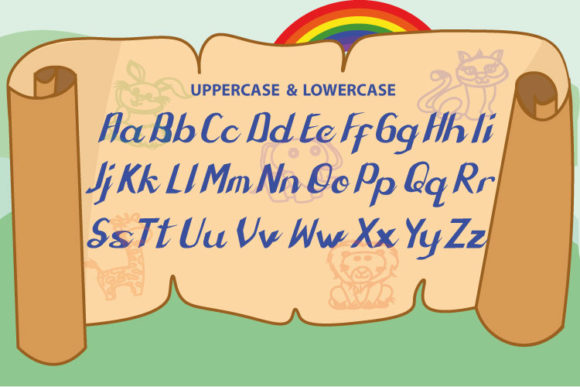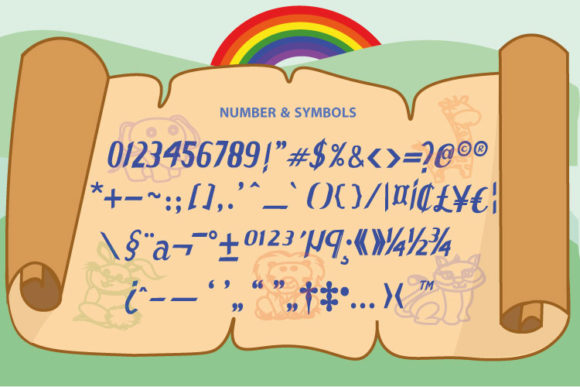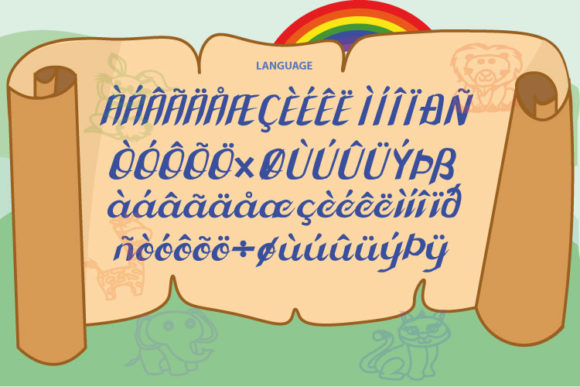
Introducing Happy Kids Font: The Playful Display Font for Fun and Creative Projects
Are you tired of using the same old fonts for your design projects? Do you want to add a touch of playfulness and whimsy to your creations? Look no further than Happy Kids Font, a delightful display font that’s perfect for bringing your next project to life. With its straight lines and pointed edges, Happy Kids Font is sure to capture the attention of your audience and leave a lasting impression.
What is Happy Kids Font?
Happy Kids Font is a playful display font that’s designed to add a fun and carefree touch to your designs. Its straight lines and pointed edges give it a unique and distinctive look that’s sure to stand out from the crowd. Whether you’re working on a project for kids or adults, Happy Kids Font is the perfect choice for anyone looking to add a bit of whimsy and personality to their design.
Key Features of Happy Kids Font
- Playful and Fun Design: Happy Kids Font is designed to be playful and fun, making it perfect for projects that require a lighthearted and carefree touch.
- Straight Lines and Pointed Edges: The font’s straight lines and pointed edges give it a unique and distinctive look that’s sure to capture attention.
- Display Font: Happy Kids Font is a display font, making it perfect for headlines, titles, and other display text.
- Easy to Read: Despite its playful design, Happy Kids Font is easy to read, making it perfect for use in a variety of projects.
Uses for Happy Kids Font
Happy Kids Font is a versatile font that can be used in a variety of projects, including:
- Children’s Books and Educational Materials: Happy Kids Font is perfect for use in children’s books, educational materials, and other projects aimed at kids.
- Playful Logos and Branding: The font’s playful design makes it perfect for use in logos and branding for companies that want to add a fun and carefree touch to their image.
- Party Invitations and Decorations: Happy Kids Font is perfect for use in party invitations, decorations, and other materials for kids’ parties.
- Social Media Graphics and Posts: The font’s playful design makes it perfect for use in social media graphics and posts that require a fun and attention-grabbing touch.
Why Choose Happy Kids Font?
There are many fonts to choose from, but Happy Kids Font stands out from the crowd for several reasons:
- Unique and Distinctive Design: Happy Kids Font has a unique and distinctive design that’s sure to capture attention and leave a lasting impression.
- High-Quality Design: Happy Kids Font is designed to high standards, ensuring that it looks great in any project.
Tips for Using Happy Kids Font
Here are a few tips for using Happy Kids Font in your projects:
- Use it Sparingly: Happy Kids Font is a display font, so it’s best to use it sparingly to add emphasis and attention to specific parts of your design.
- Pair it with Other Fonts: Happy Kids Font can be paired with other fonts to create a unique and interesting look.
- Experiment with Different Sizes and Colors: The font’s playful design makes it perfect for experimenting with different sizes and colors to add visual interest to your project.
Happy Kids Font is a playful display font that’s perfect for adding a fun and carefree touch to your design projects. With its straight lines and pointed edges, it’s sure to capture attention and leave a lasting impression. Whether you’re working on a project for kids or adults, Happy Kids Font is the perfect choice for anyone looking to add a bit of whimsy and personality to their design. So why not give it a try and see how it can bring your next project to life?